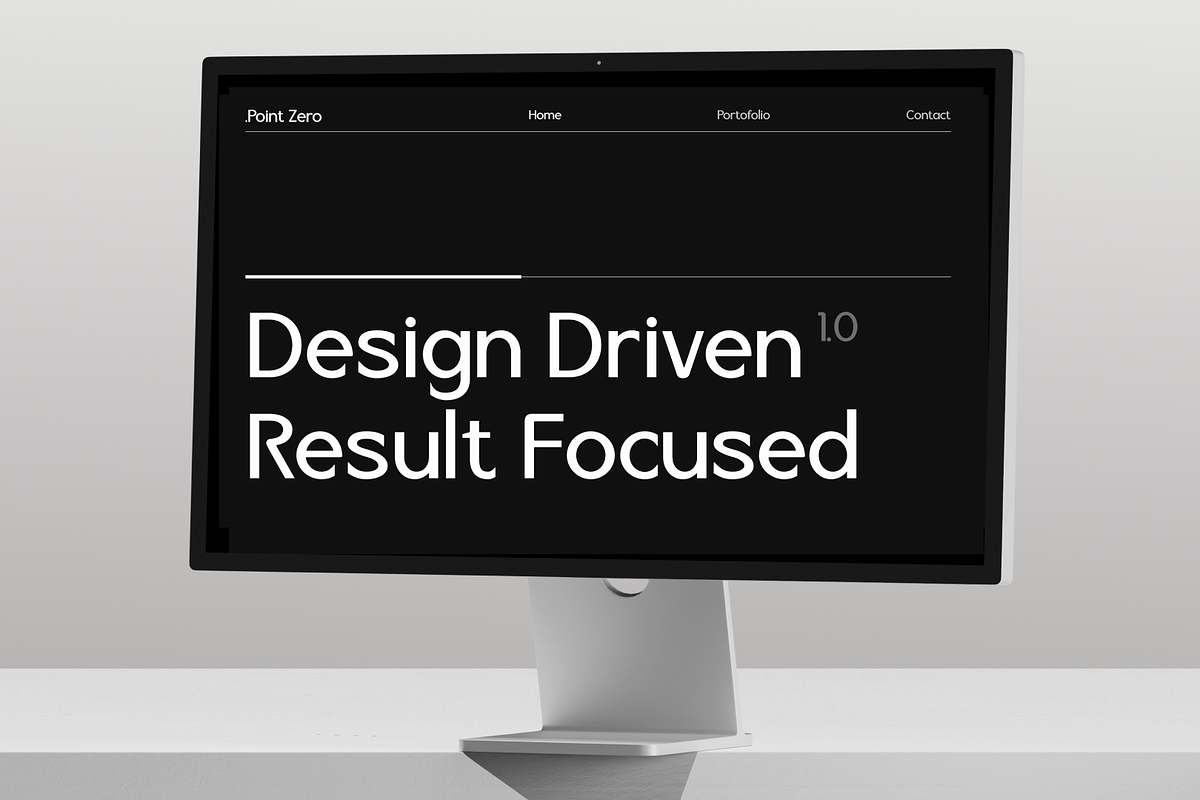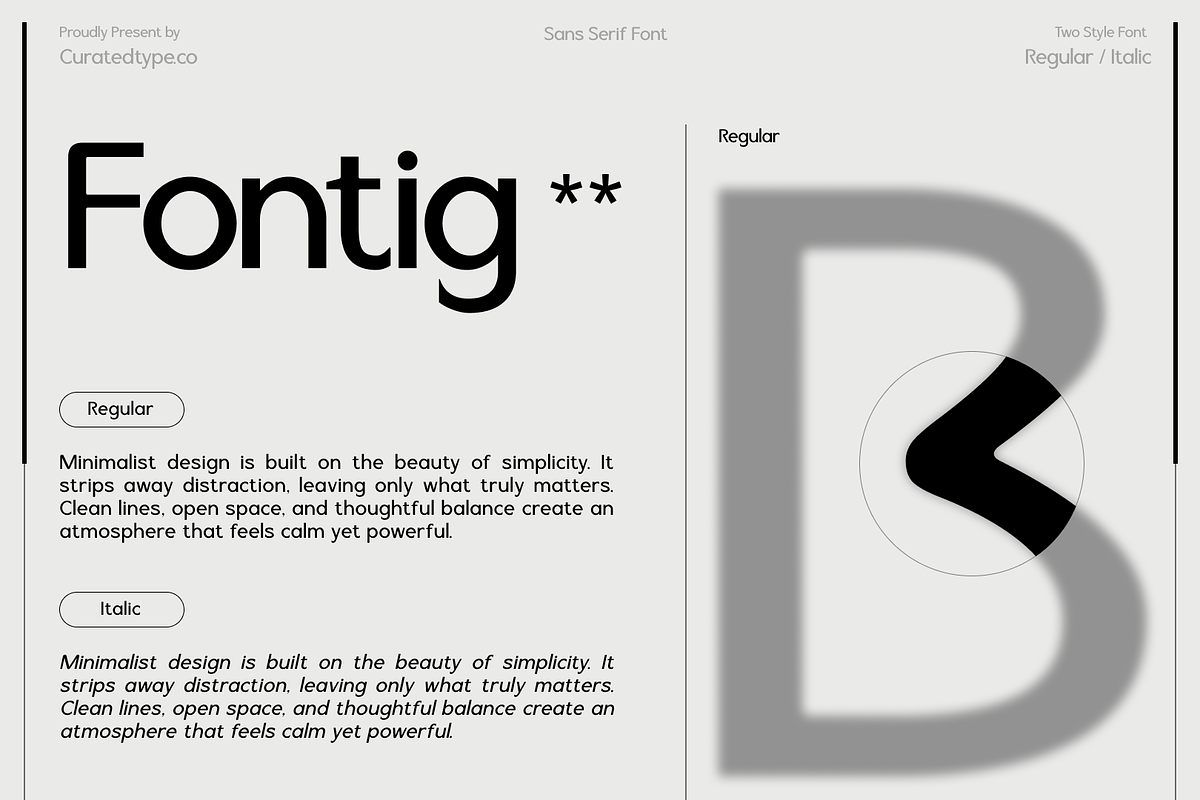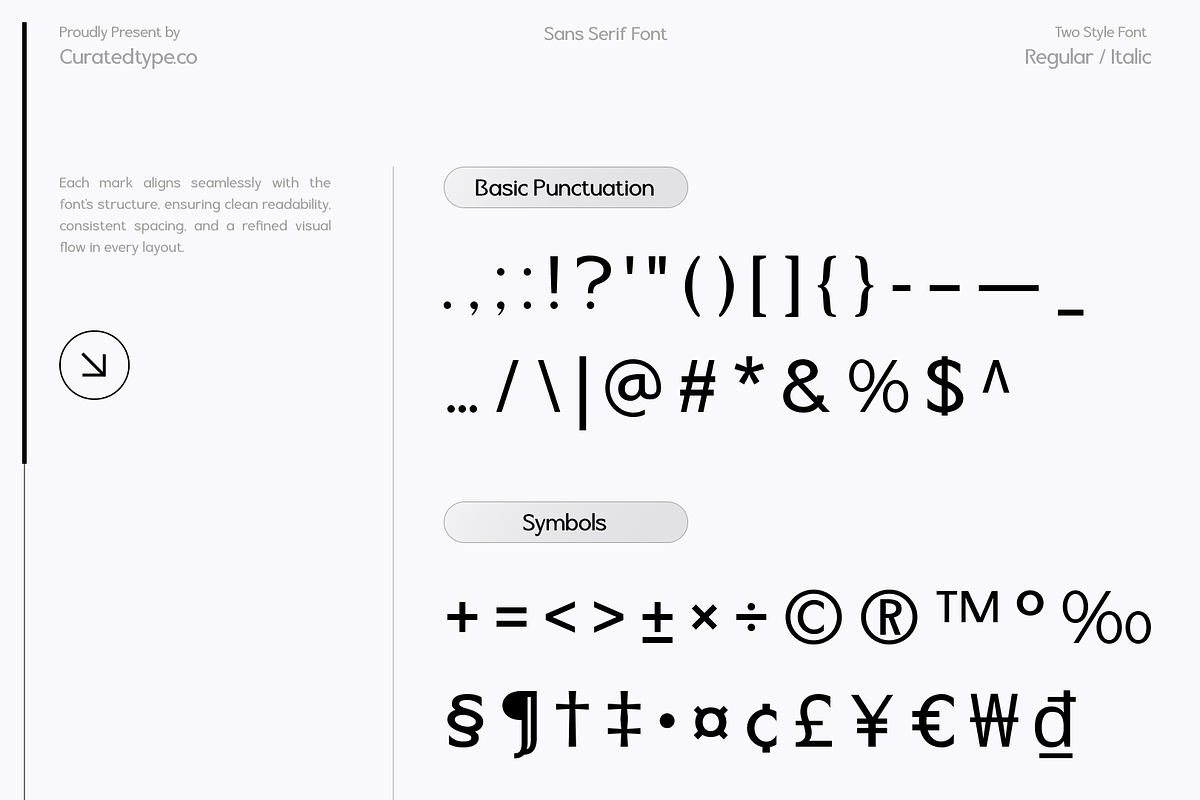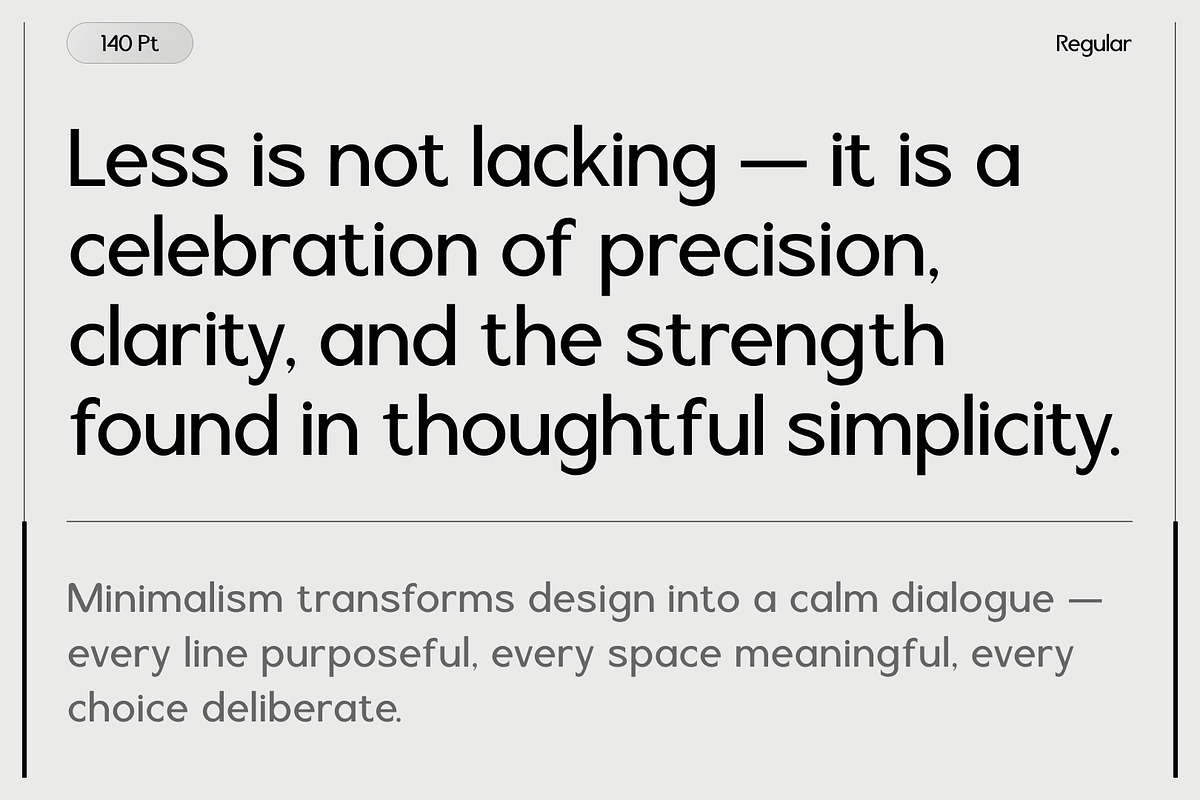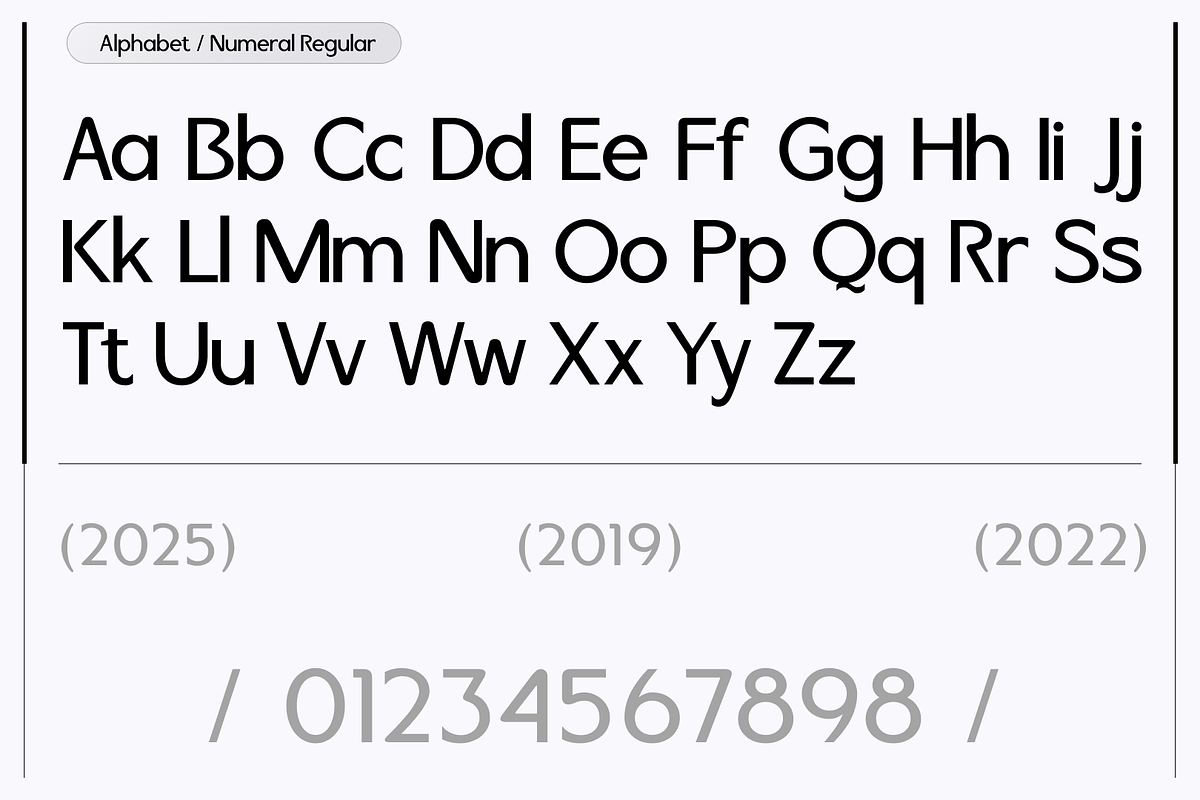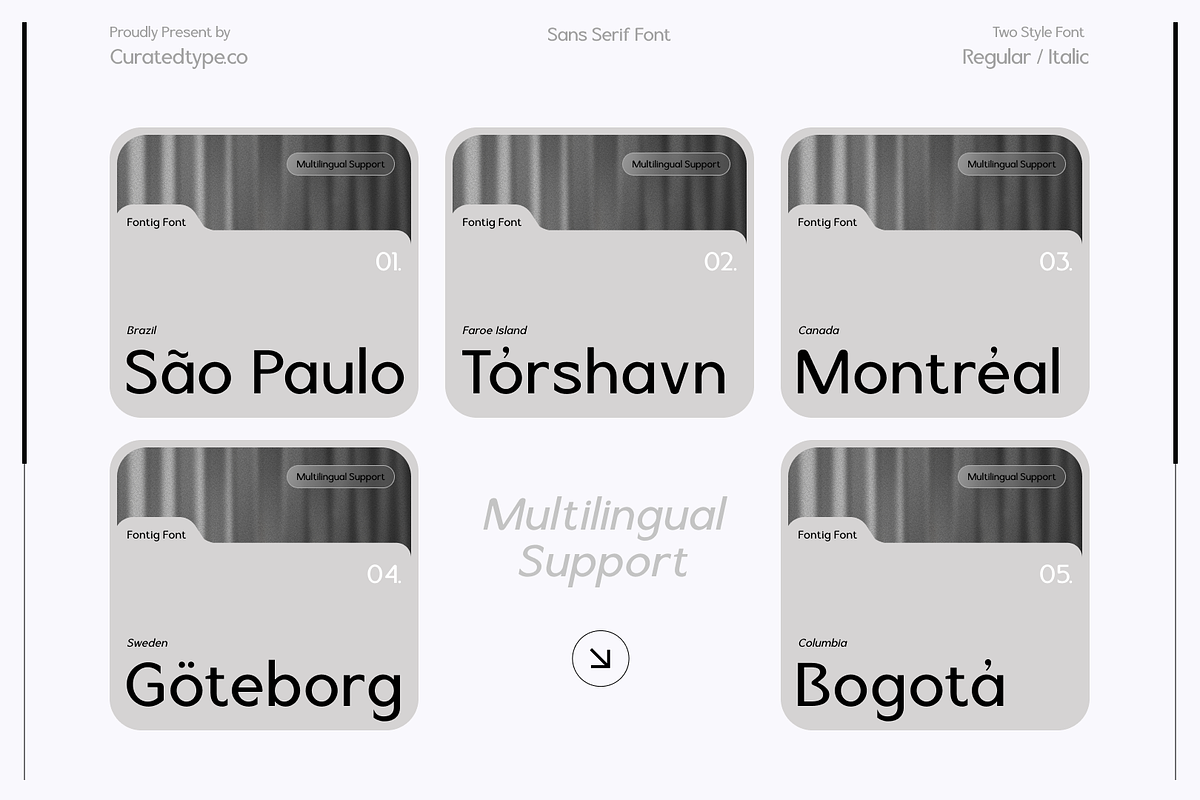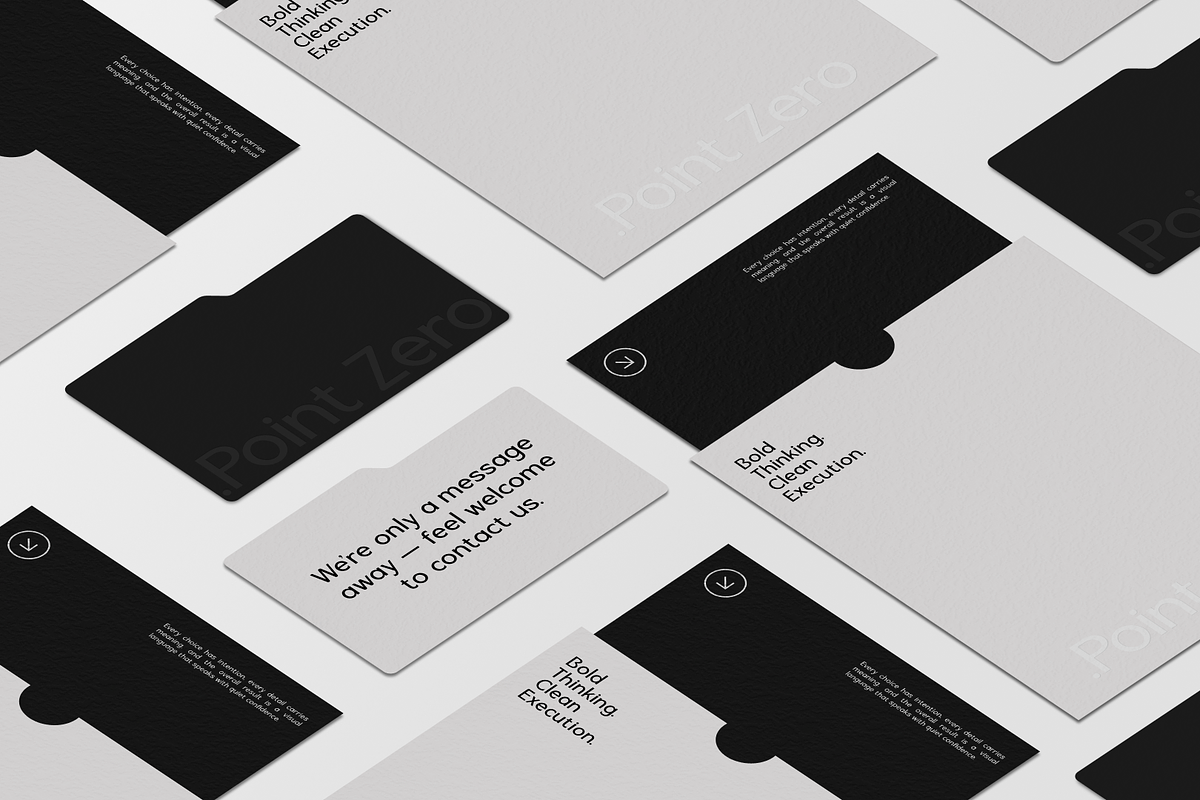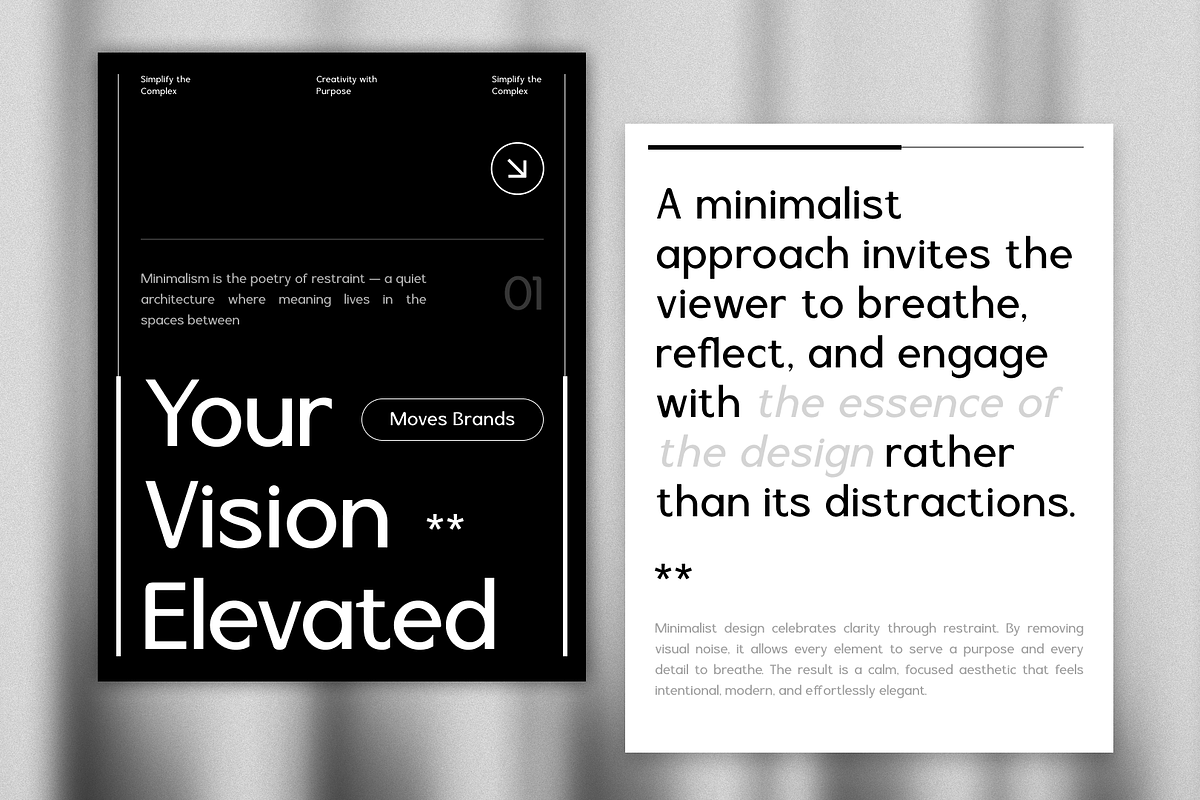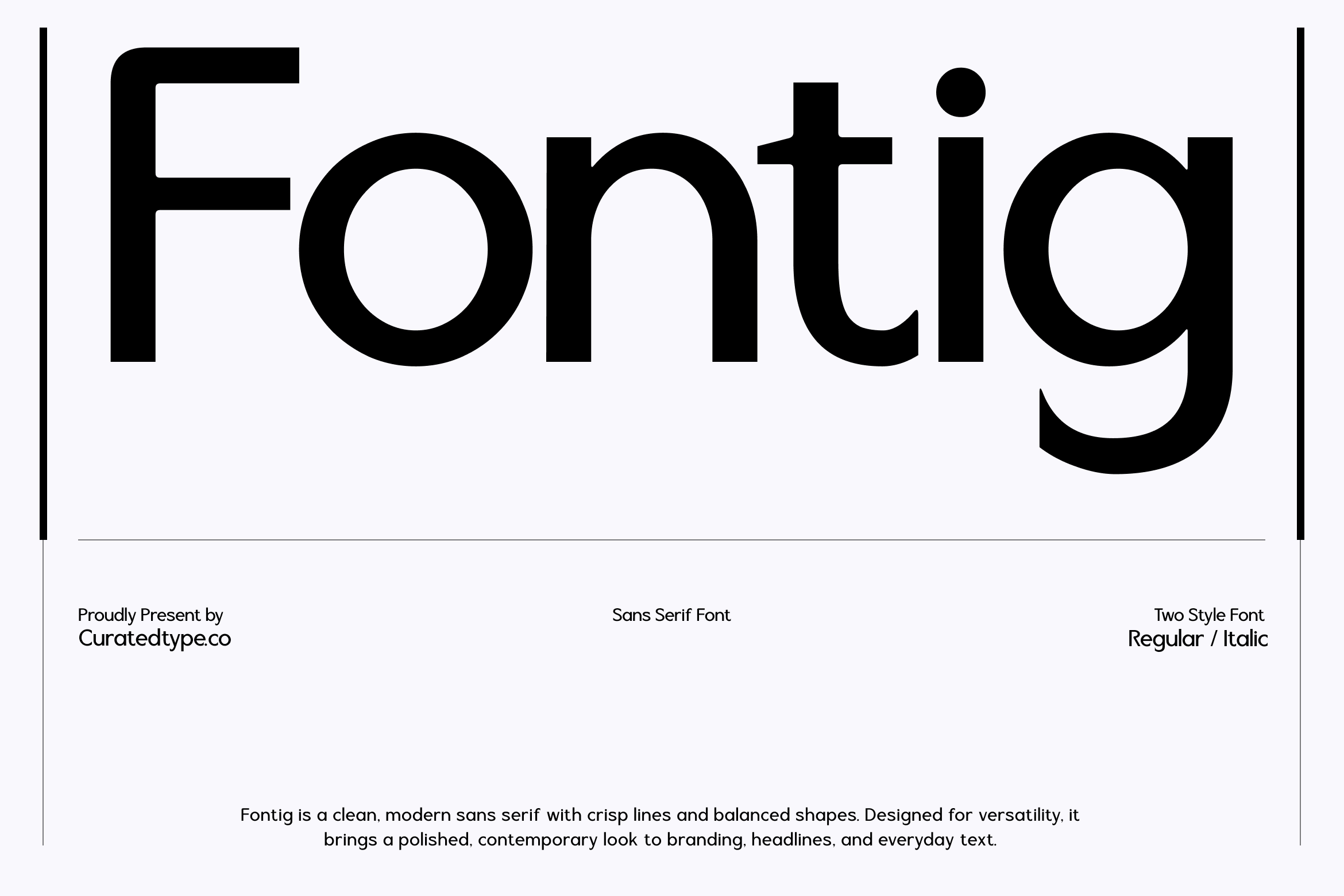
Fontig - Typeface
Fontig is a geometric sans-serif defined by its pure, circular letterforms (like the 'o', 'c', and 'e') and soft, rounded stroke endings. This approach creates a clean, modern, and uncluttered look that feels both professional and approachable. Its monolinear design and single-story 'a' enhance its simplicity, making it a highly readable and stylish choice. With its friendly and clear character, Fontig is incredibly versatile. It excels in digital applications like UI/UX design, mobile apps, and websites where legibility is key. It's also a perfect fit for branding, logos, packaging, and children's media, bringing a touch of warmth and personality to headlines and body text alike.
- 2 Styles Font : Regular, Italic
- Standard letter A-Z and a-z
- Numeral, Symbol, and Punctuations